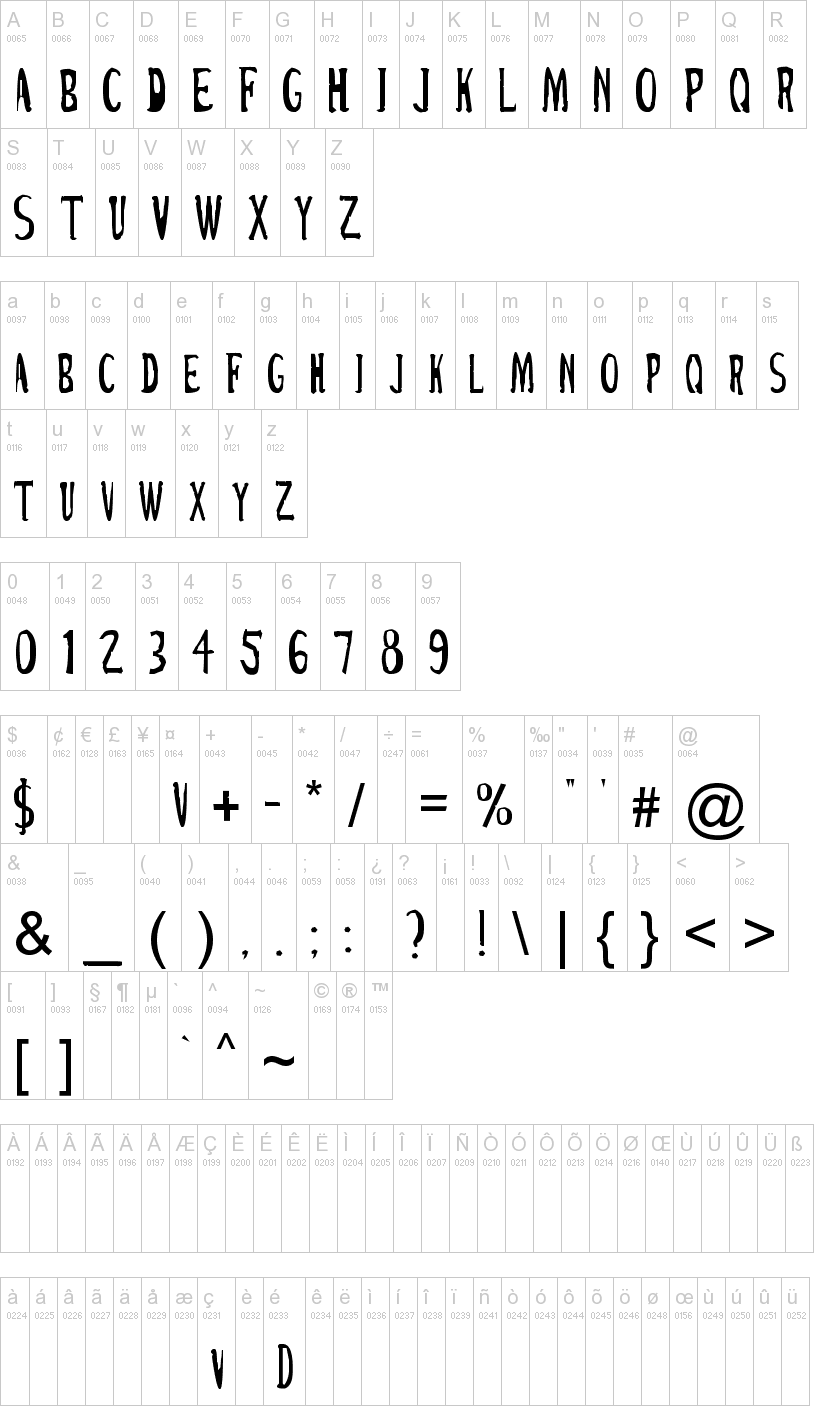
Шрифт Cirque Du Freak
Press Alt+0233 to put an unsplotched 'D,' push Alt+0231 to put a splotched 'v,' and push Alt+0164 to put an unsplotched capital 'V.' This font is based on 'Cirque du Freak' by Darren Shan.